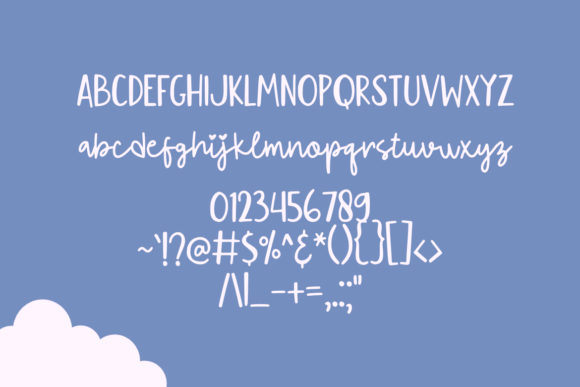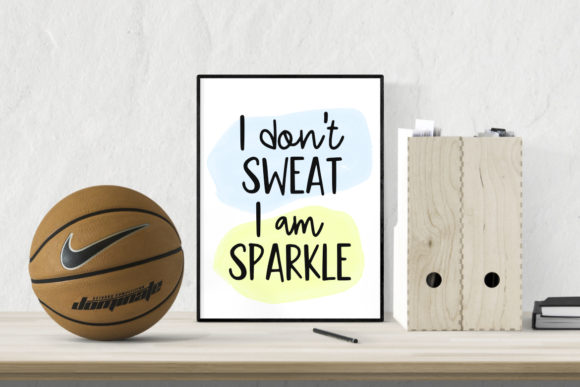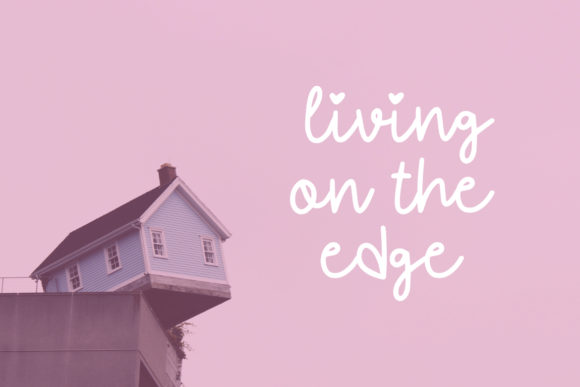
HomeScript FontsFlying Kite Font Script Fonts Flying Kite Font FacebookXPinterestWhatsApp Flying Kite Font Poster 2 Flying Kite Font Poster 3 Flying Kite Font Poster 4 About Flying Kite Font Flying Kite is a cute and playful script with a simple vibe. Use it to make any design project stand out. DOWNLOAD ON CREATIVE FABRICAThis font is sold and delivered by Creative Fabrica. Font Canyon may earn a commission if you buy through this link. People also explored Cashwoots Font Morriles Font Uppr Font Luna Love Font Master Holland Font Sild Font Basketball Font Bought Something Font Monicha Script Font 475 0 TagsFlying Kite Font Previous articleTasty Grill FontNext articleAfter Breaking Font LEAVE A REPLY Cancel reply Comment: Please enter your comment! Name:* Please enter your name here Email:* You have entered an incorrect email address! Please enter your email address here Website: Save my name, email, and website in this browser for the next time I comment. Personal Use Free Bukan Personal Use Free Read more about this font Planet Benson 2 Personal Use Free Read more about this font Pouline Personal Use Free Read more about this font Black Friday Personal Use Free Read more about this font BLOG Best Fonts for YouTube Videos: Make Your Thumbnails Stand Out Best Fonts for YouTube Videos: Make Your Thumbnails Stand Out Choosing the right font can make a massive difference in how your YouTube videos perform.... Top 7 Google Fonts Alternatives for Faster and Privacy-Friendly Web Design (2025) Free Fonts Risk: Why Free Fonts Can Be Dangerous for Designers Best Fonts for T-Shirt Design – Top 2025 Picks